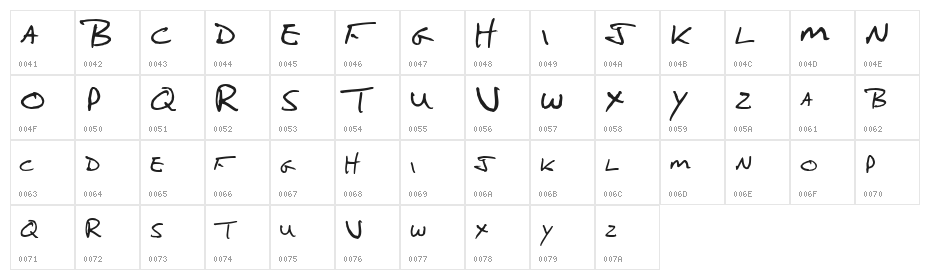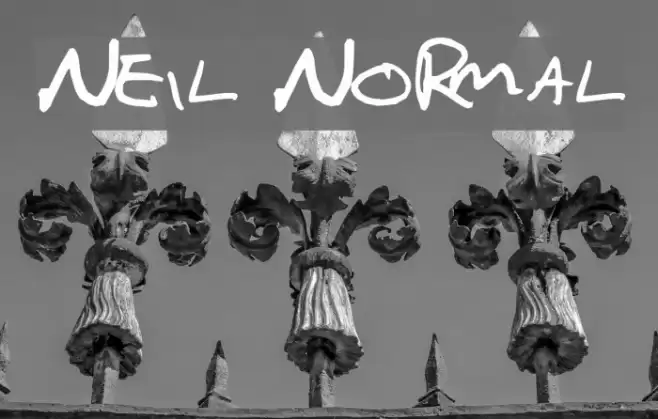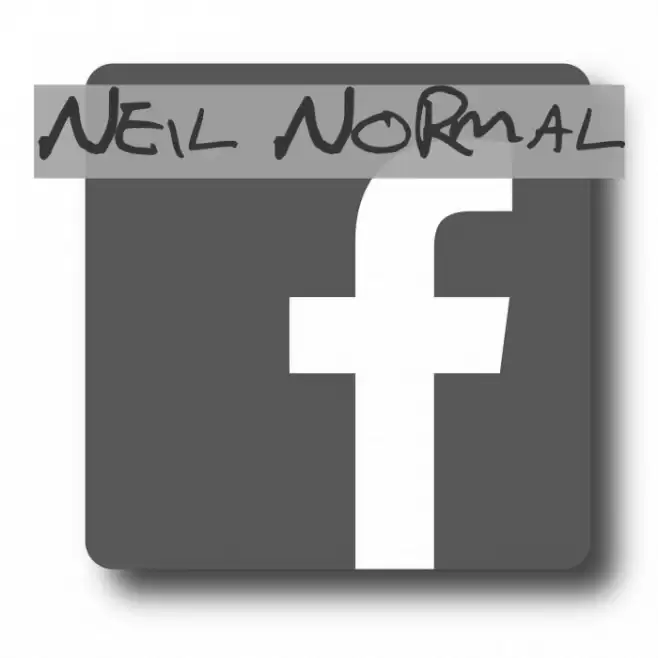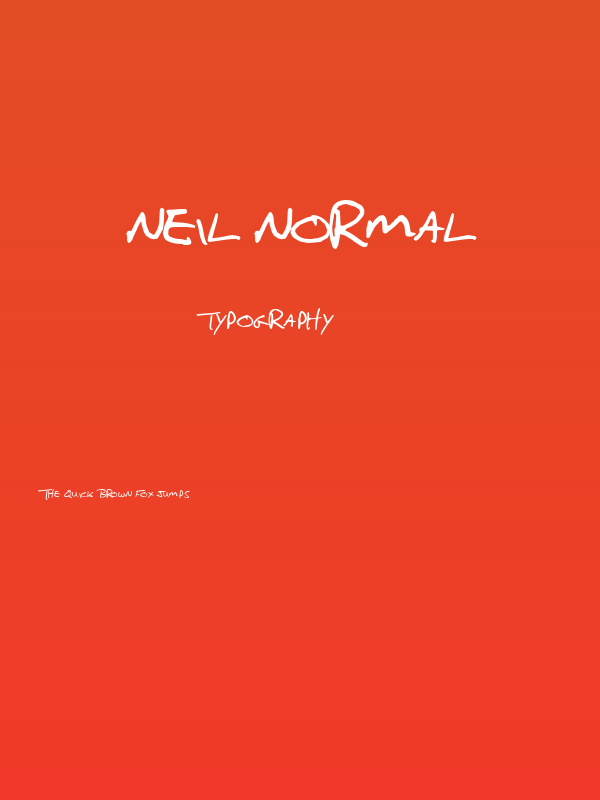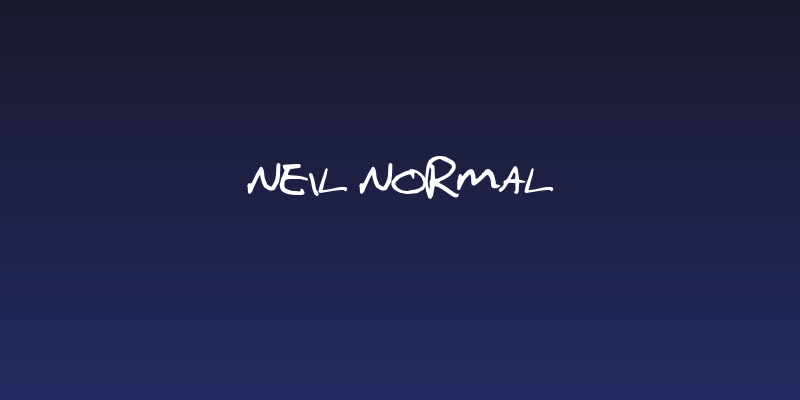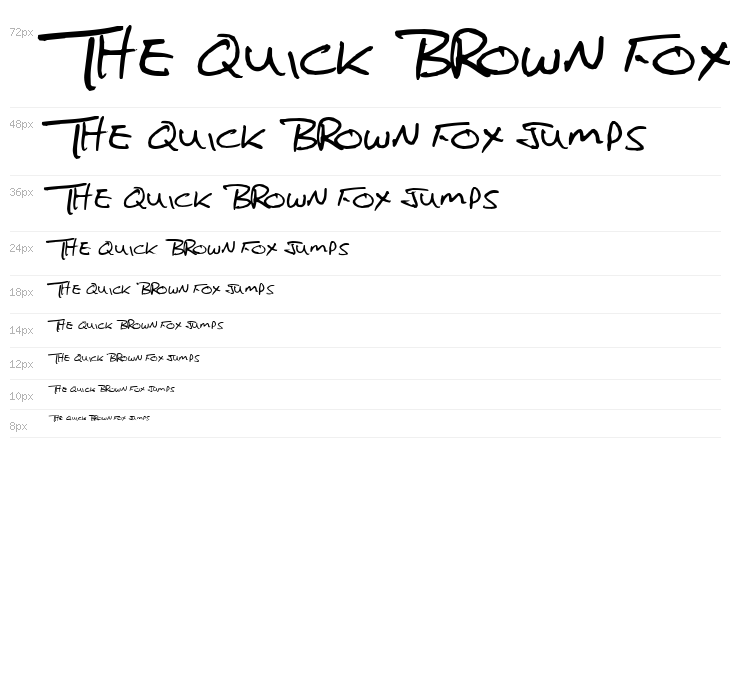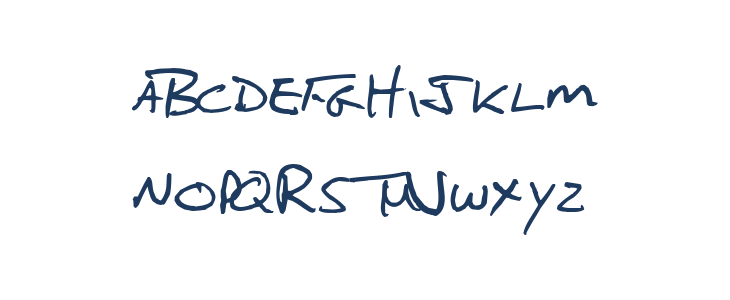
Neil Normal Font
Neil Normal Description
This font features a dynamic, handwritten style that exudes a casual and personal touch. The letters are slightly slanted, with varying stroke thickness that adds a sense of movement and energy. The uppercase and lowercase letters are distinct yet harmonious, maintaining a consistent flow throughout. The numbers and special characters are crafted with the same lively flair, ensuring a cohesive look across all text elements. This font's organic and spontaneous appearance makes it ideal for projects that require a human touch.